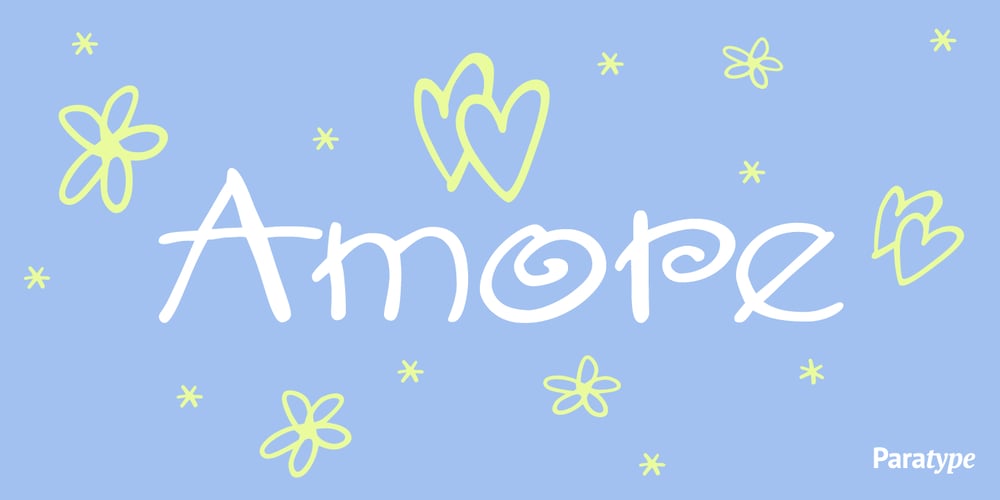
Amore
Amore font
Amore Font Family was designed by Gennady Fridman and published by ParaType. Amore contains 1 styles and family package options. Based on informal handwriting. The face resembles sophisticated but naive childish hand and brings associations of summer vacation and meadows spread with daisies. It may be useful in designing of invitations, picture-cards, posters, funny headers and certainly in advertising.